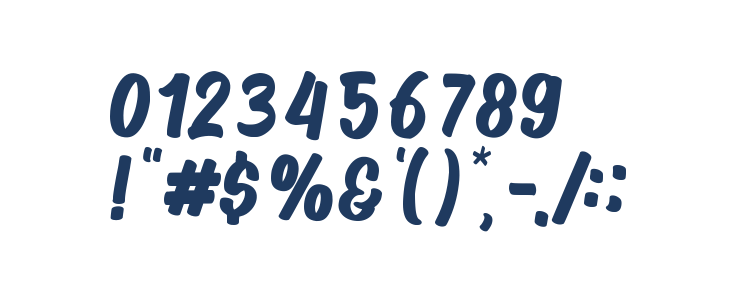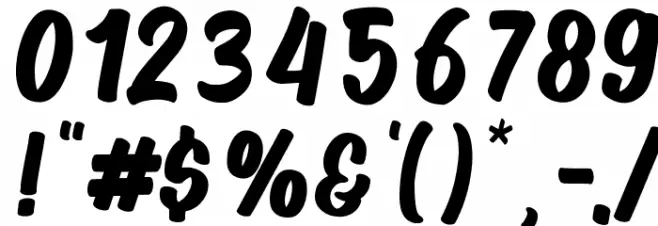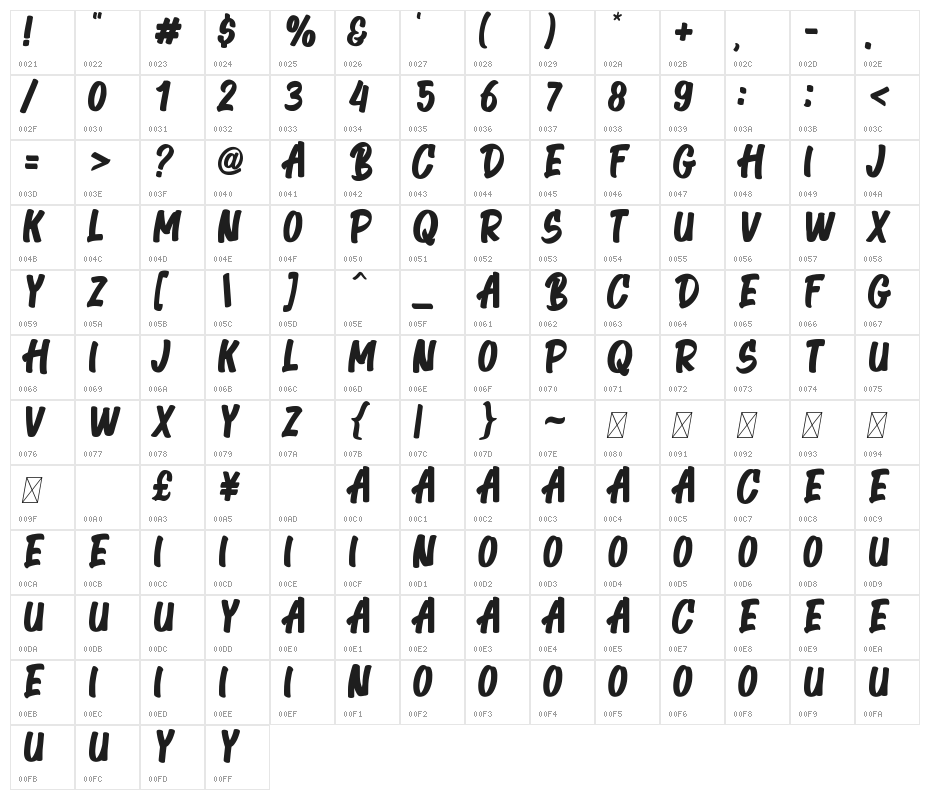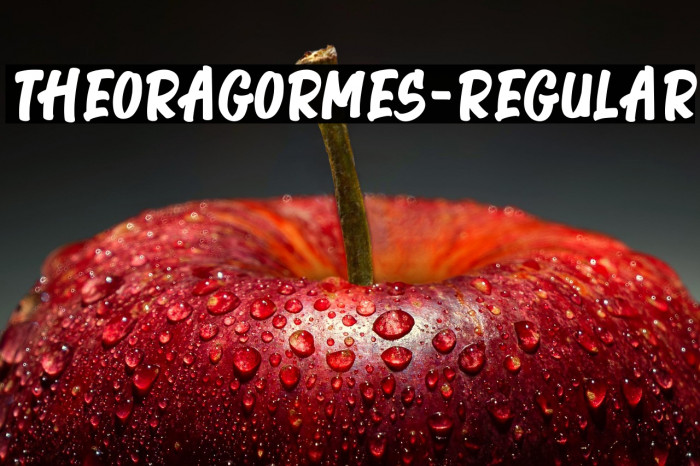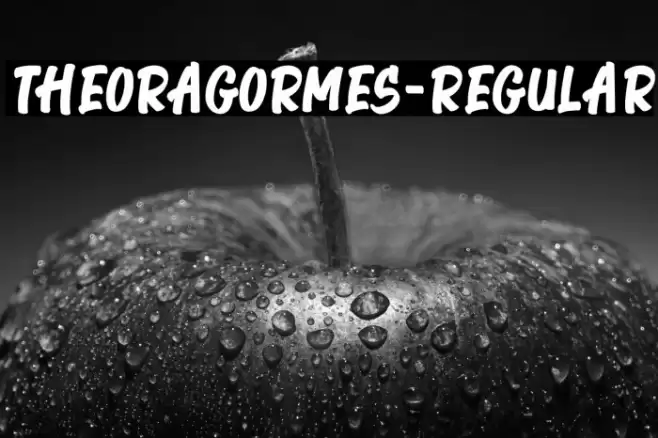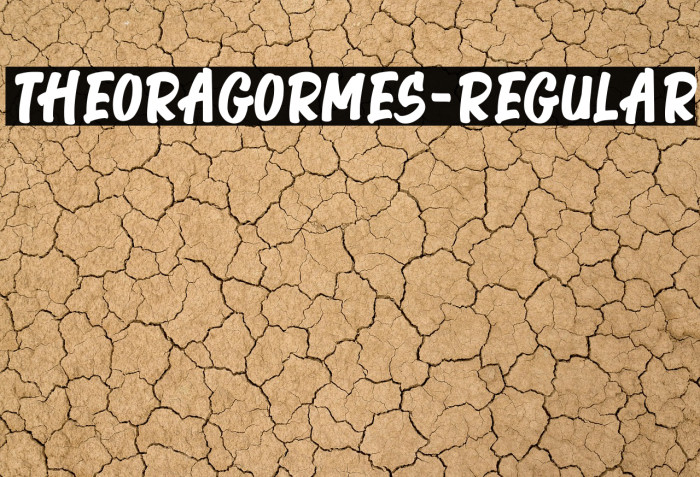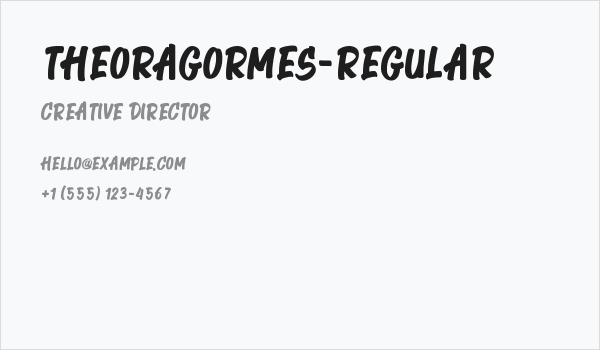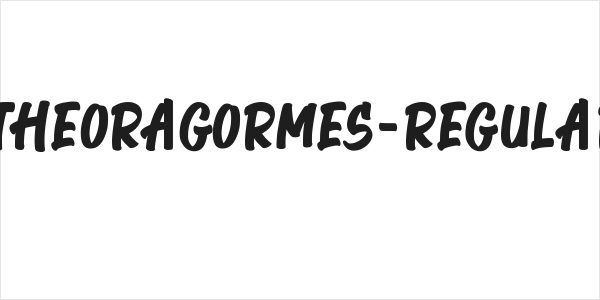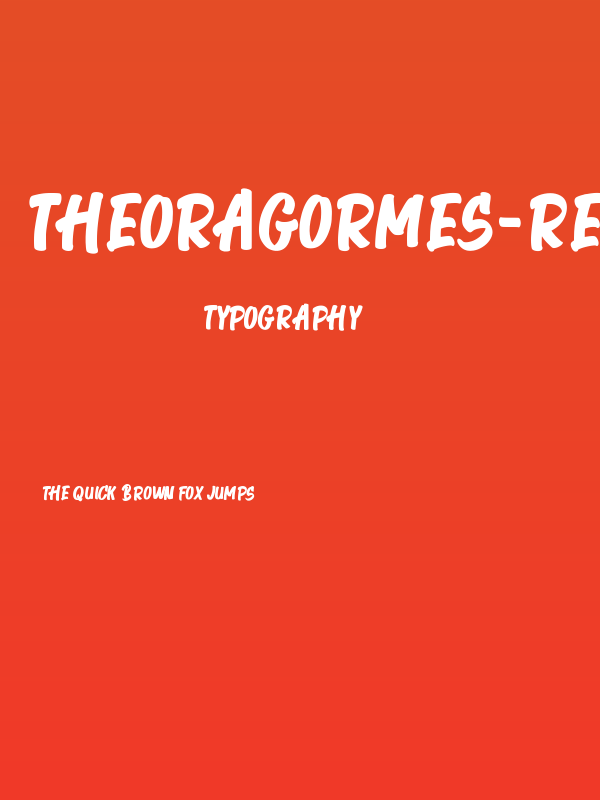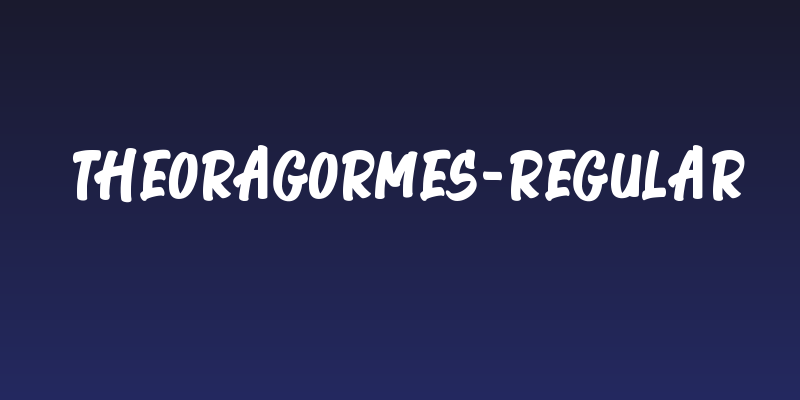
TheoraGormes-Regular Font
TheoraGormes-Regular Description
This font features a bold and dynamic style with a handwritten appearance. The characters are thick and rounded, giving them a playful and energetic feel. The uppercase and lowercase letters maintain a consistent flow, with slight variations that add to the font's charm. The numbers and special characters are equally bold, ensuring a cohesive look across all elements. This font's design is perfect for projects that require a lively and informal touch, making it suitable for creative and artistic applications.
| Proposed Projects | Ideal for posters, social media graphics, children's books, and creative branding projects. |